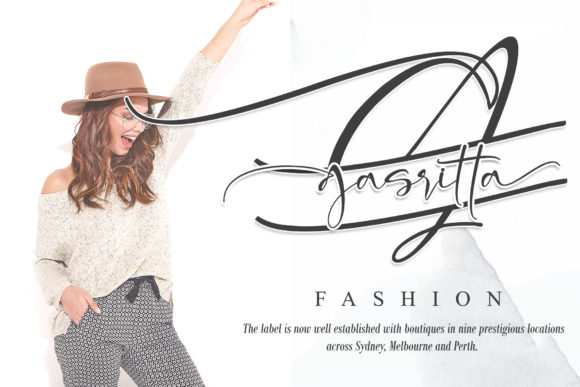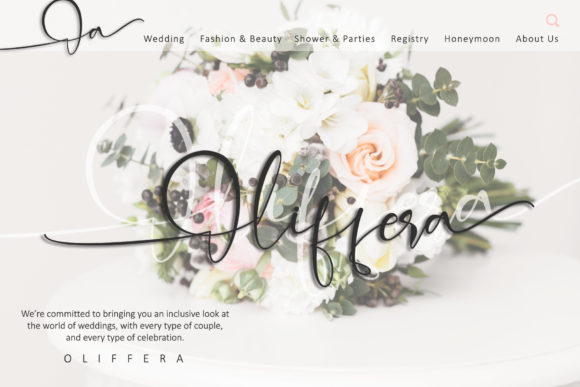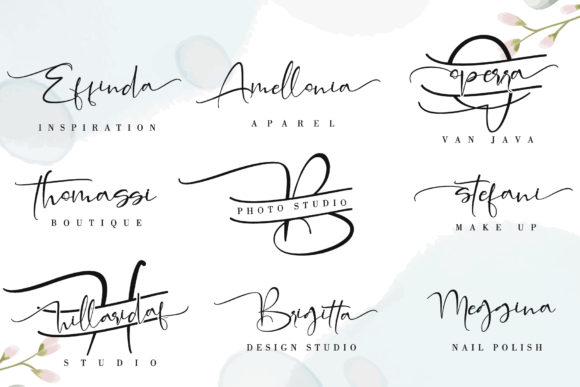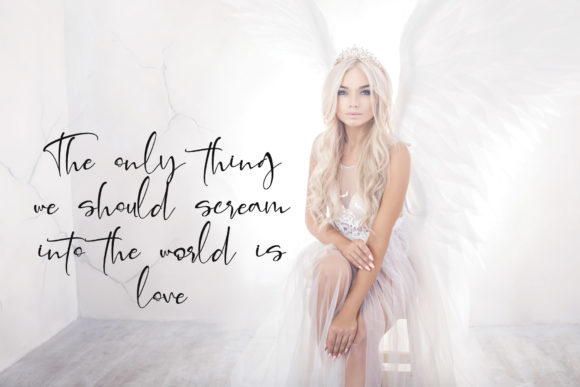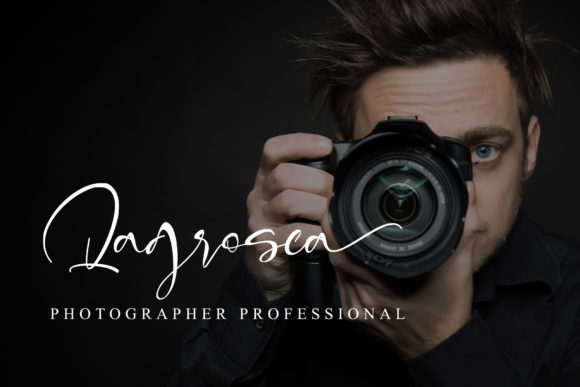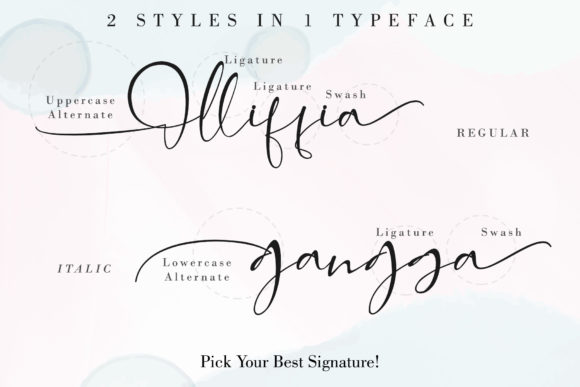
The Alleffra Font: A Sweet and Modern Handwritten Delight
I’ll never forget the moment I stumbled upon the Alleffra font. I was working on a wedding invitation project for a client, and I was struggling to find the perfect font that would capture the sweet and romantic feel she was looking for. As I scrolled through my font library, I came across Alleffra, and it was love at first sight! 💕
This incredibly modern and sweet handwritten font has a way of making any design idea stand out. Its authentic feel and versatility make it perfect for a wide range of creative projects, from gorgeous wedding invitations and beautiful stationery art to eye-catching social media posts.
- 💫 Authentic feel: Alleffra has a unique, handwritten charm that adds a personal touch to any design.
- 🌈 Variety of alternates: Alleffra features a range of stunning alternates, glyphs, and swashes to keep your designs fresh and exciting.
While Alleffra is an amazing font, there are a few things to keep in mind:
- 🤔 Some characters may require manual kerning: As with any handwritten font, some characters may need a little extra attention to get the kerning just right.
- ⚠️ Not suitable for body text: Due to its decorative nature, Alleffra is best used for headlines, titles, or short paragraphs.
The Story Behind Alleffra
Alleffra was designed with love and care by a talented type designer who wanted to create a font that would bring a touch of warmth and personality to any design. The designer’s inspiration came from traditional handwritten scripts, combined with a modern twist to make it fresh and exciting.
Q: Is Alleffra suitable for body text?
A: No, Alleffra is best used for headlines, titles, or short paragraphs due to its decorative nature.